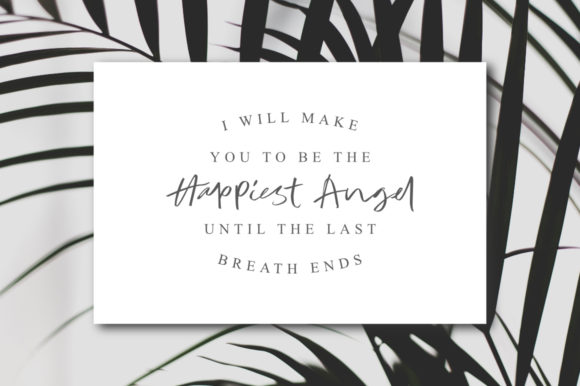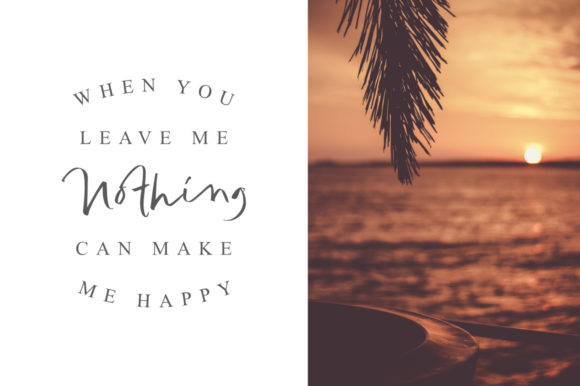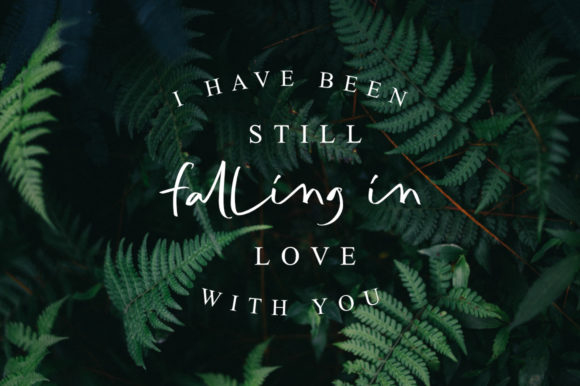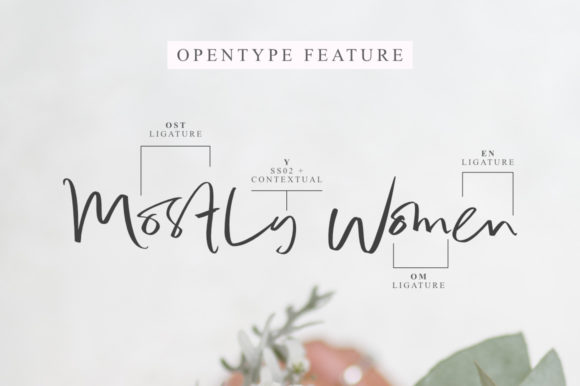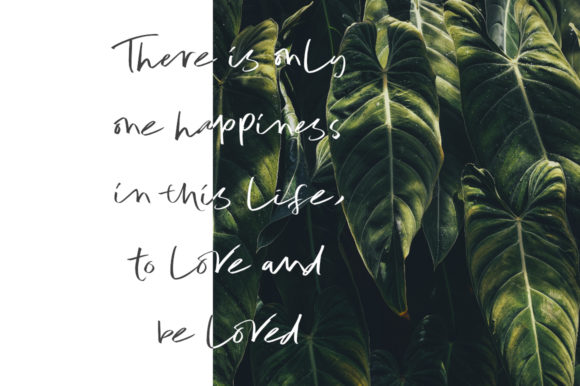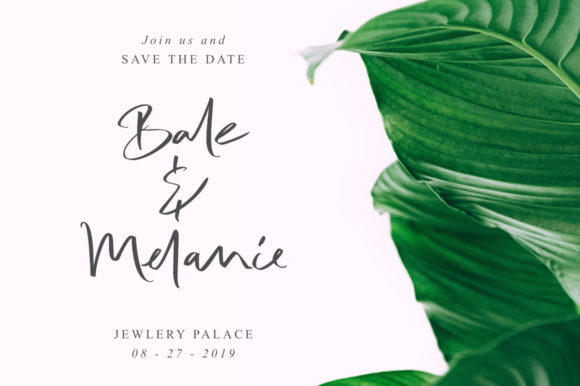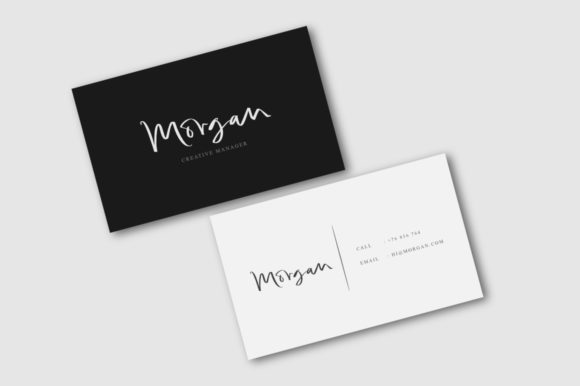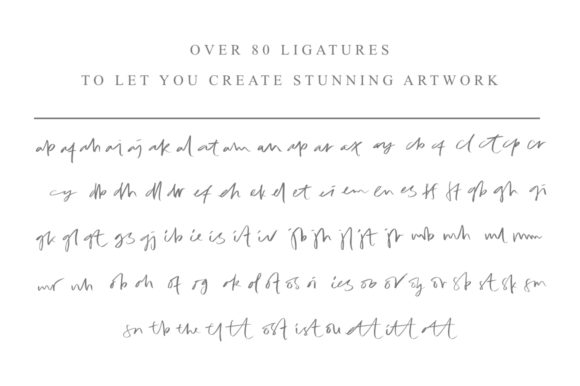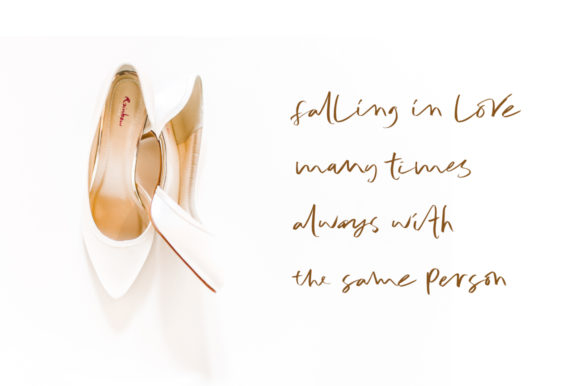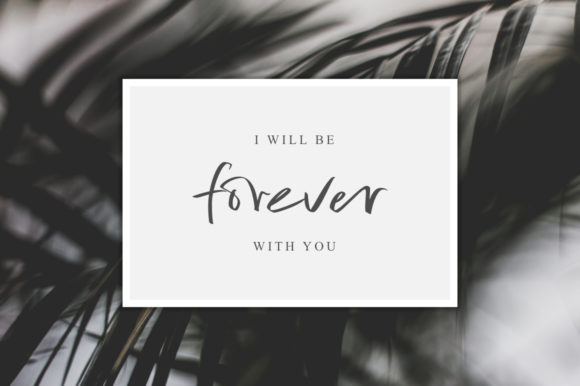
Bale & Melanie Font
About Bale & Melanie Font
The Bale & Melanie is a beautiful handwritten font. It’s perfect for every creative project that needs an elegant typeface.